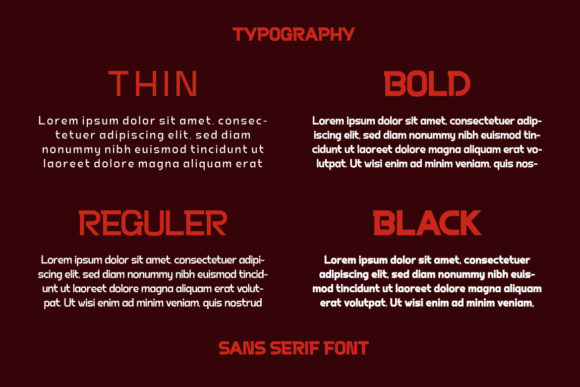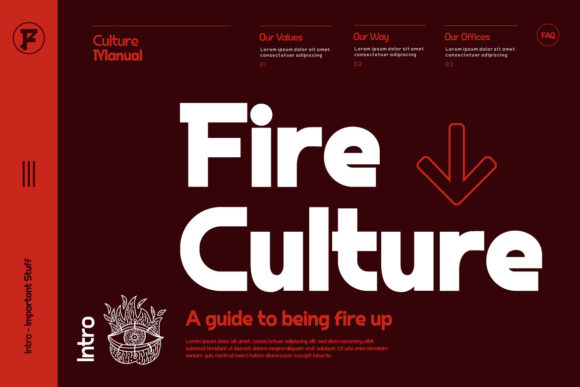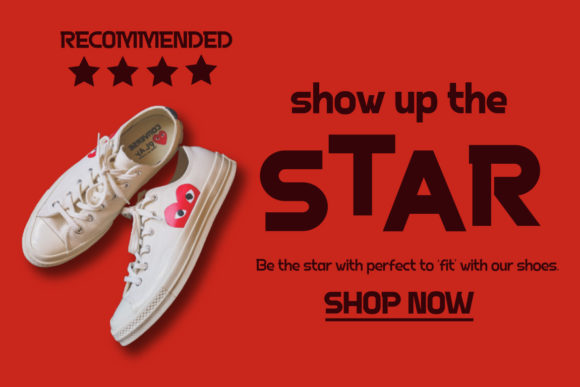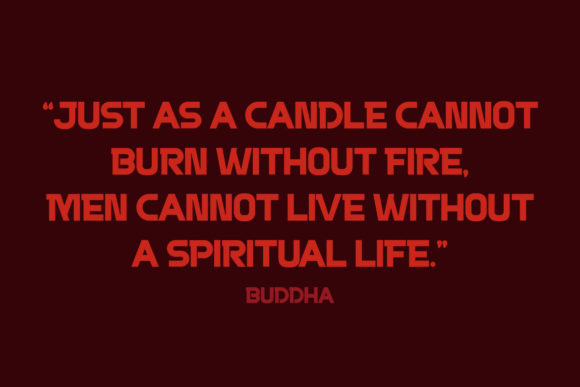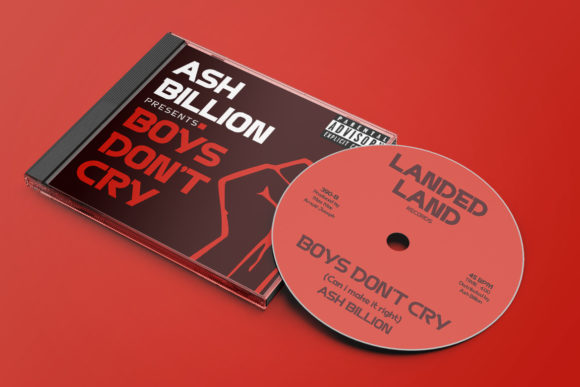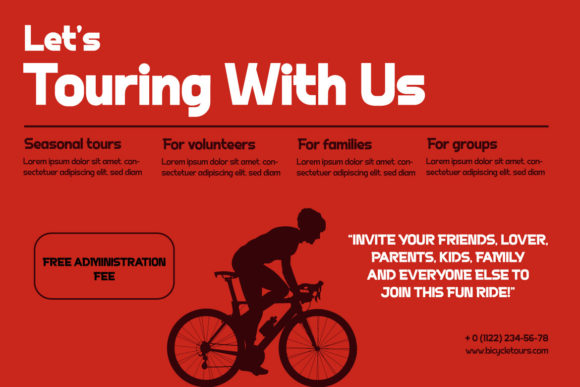
Efrida Font: The Ultimate Retro Display Font for Your Creative Projects
Are you tired of using the same old fonts for your designs? Look no further than Efrida Font, a cool and thick lettered display font that’s sure to make your projects stand out. With its retro vibe and endless possibilities, Efrida is the perfect addition to your font collection.
What is Efrida Font?
Efrida Font is a display font that’s designed to make a statement. Its thick, bold letters are perfect for headlines, titles, and any other text that needs to grab attention. The font has a retro feel to it, reminiscent of classic signs and posters from the 50s and 60s. But despite its vintage look, Efrida is a modern font that’s versatile and easy to use.
Key Features of Efrida Font
- Thick and bold letters: Efrida’s letters are thick and bold, making them perfect for display text.
- Retro vibe: Efrida’s retro feel is perfect for designs that need a vintage touch.
- Easy to read: Despite its boldness, Efrida is easy to read, even at small sizes.
- Versatile: Efrida can be used for a wide range of designs, from posters and signs to logos and branding.
Why Use Efrida Font?
So why should you use Efrida Font for your designs? Here are just a few reasons:
- Add a retro touch: Efrida’s retro vibe is perfect for designs that need a vintage feel.
- Make your text stand out: Efrida’s bold letters are designed to grab attention and make your text stand out.
- Easy to use: Efrida is a simple font to use, even for beginners.
- Endless possibilities: Efrida can be used for a wide range of designs, from posters and signs to logos and branding.
Design Ideas Using Efrida Font
Efrida Font is a versatile font that can be used for a wide range of designs. Here are a few ideas to get you started:
- Posters and signs: Efrida is perfect for creating eye-catching posters and signs.
- Logos and branding: Efrida’s bold letters make it a great choice for logos and branding.
- Headlines and titles: Efrida is perfect for creating bold headlines and titles.
- Social media graphics: Efrida can be used to create eye-catching social media graphics.
Tips for Using Efrida Font
Here are a few tips for using Efrida Font:
- Use it sparingly: Efrida is a bold font, so use it sparingly to avoid overwhelming your design.
- Experiment with colors: Efrida looks great in a wide range of colors, so experiment to find the perfect color for your design.
- Pair it with other fonts: Efrida can be paired with other fonts to create a unique and interesting design.
Efrida Font is a cool and thick lettered display font that’s perfect for designers and crafters. With its retro vibe and endless possibilities, Efrida is a great addition to any font collection. Whether you’re creating posters, logos, or social media graphics, Efrida is a versatile font that’s easy to use and sure to make your designs stand out.